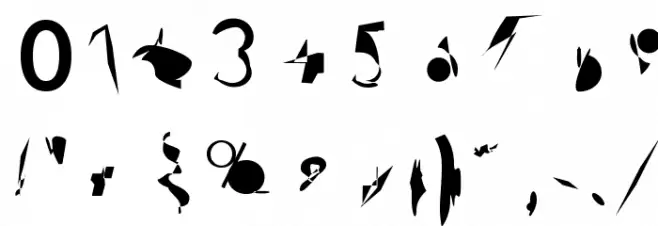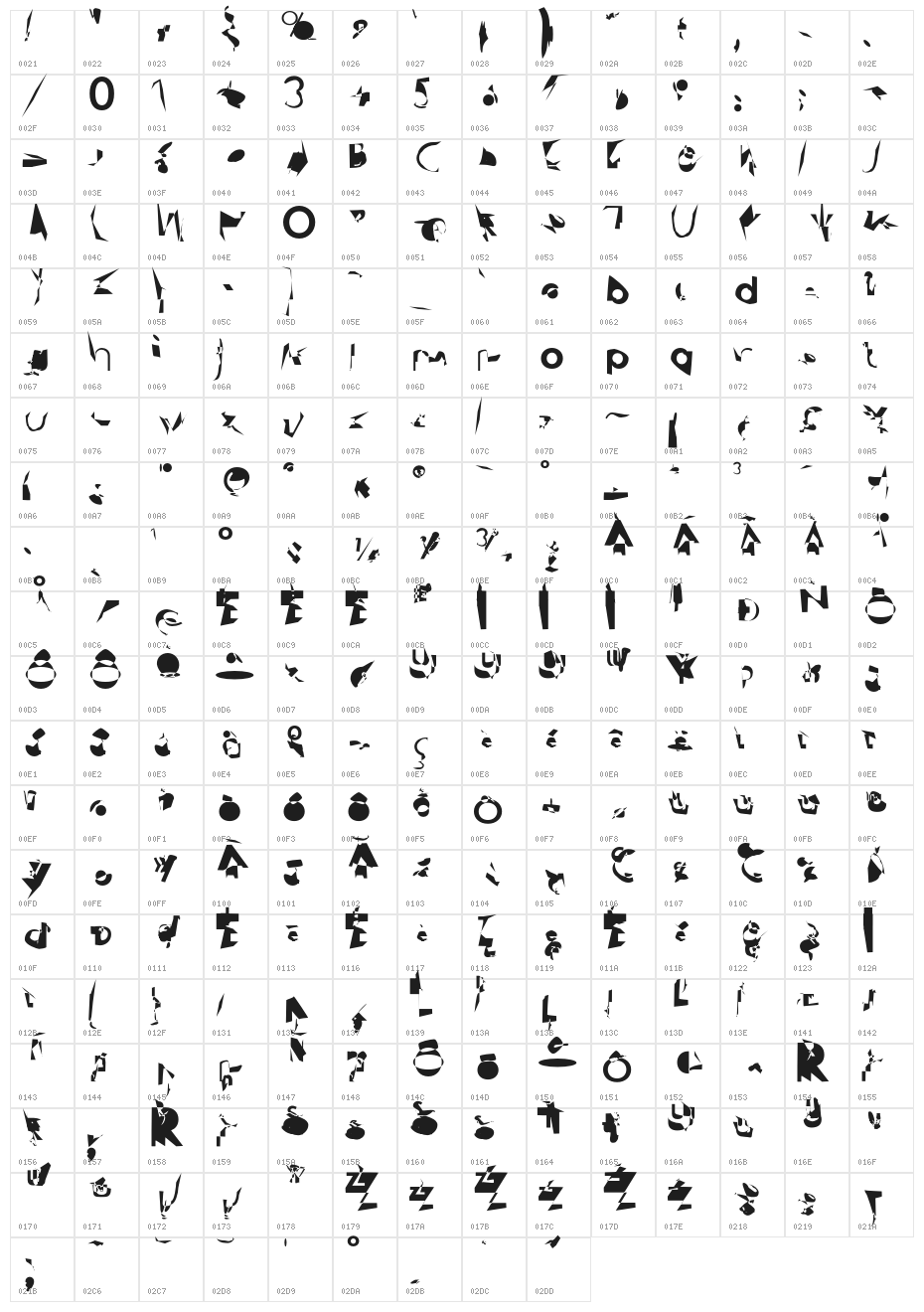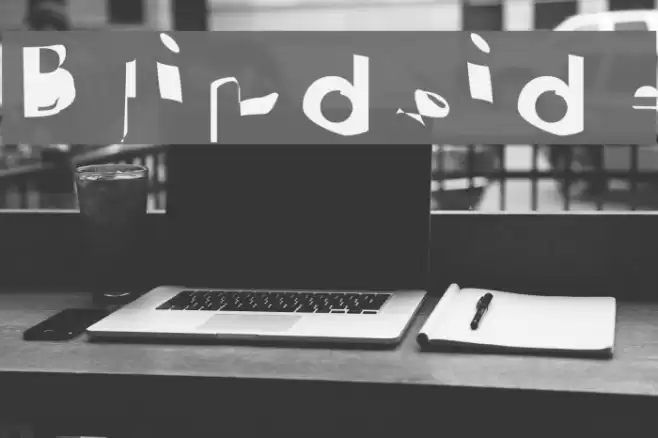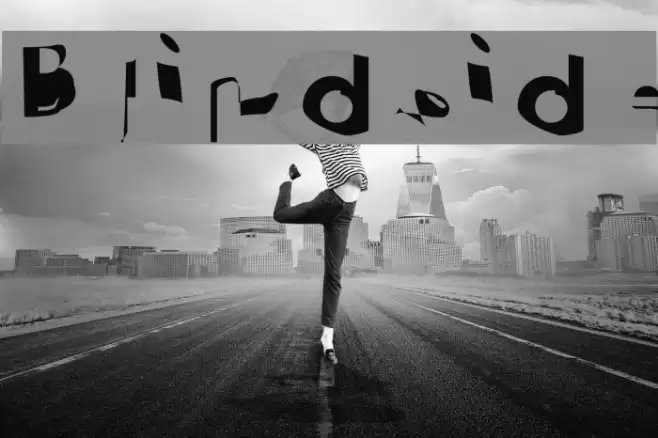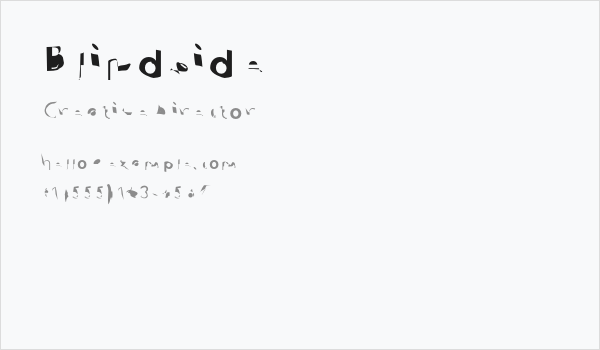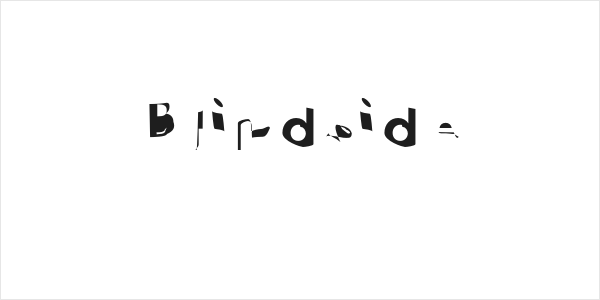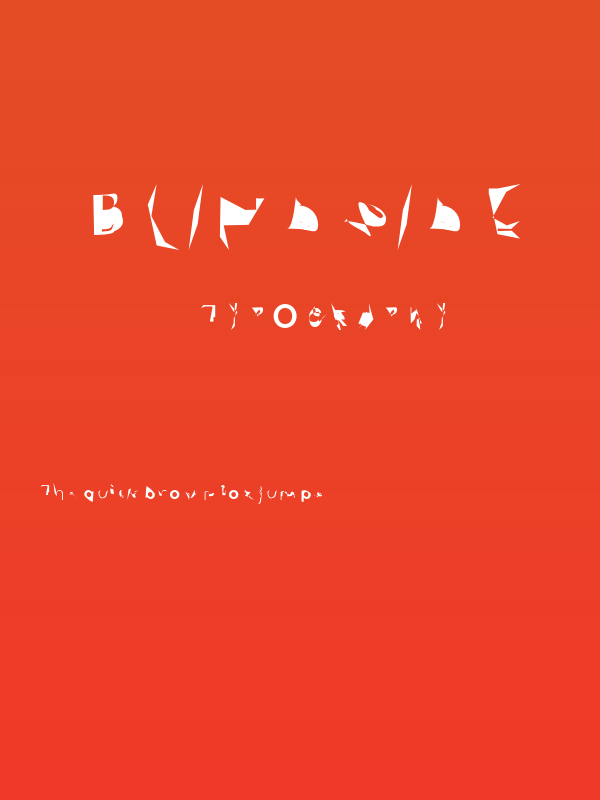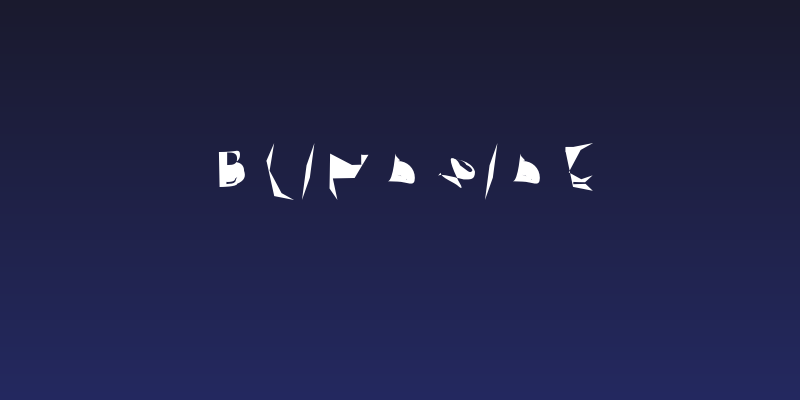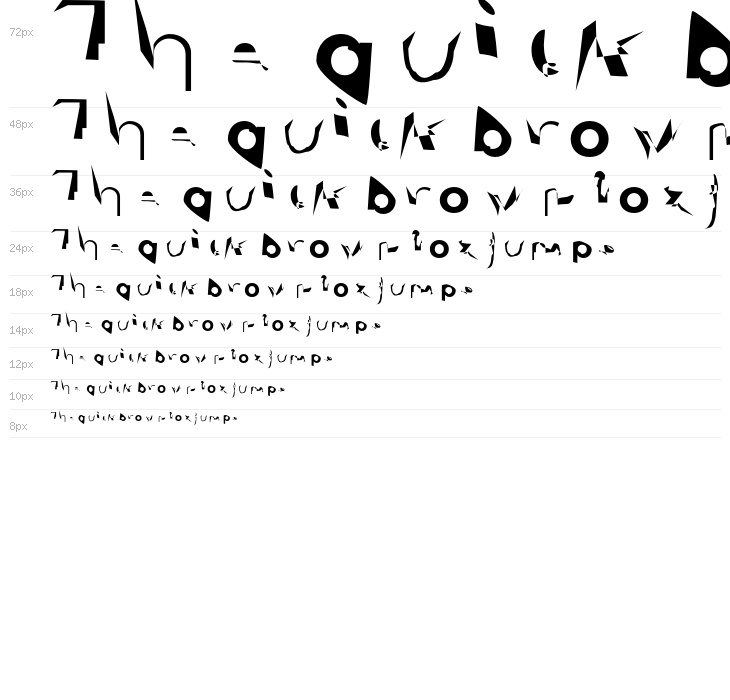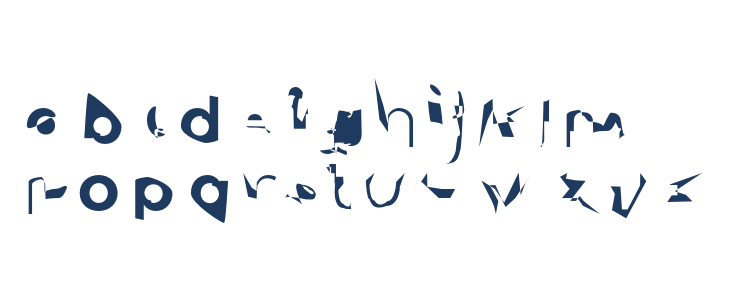
Blindside Font
Blindside Description
This font presents a highly abstract and fragmented design, characterized by sharp angles and irregular shapes. Each character appears to be deconstructed and reassembled, creating a sense of chaos and movement. The letters and numbers are barely recognizable, offering a unique visual experience that challenges traditional readability. This style is bold and experimental, making it suitable for projects that aim to push boundaries and capture attention. The font's distinctiveness lies in its ability to convey a sense of disruption and modernity, appealing to avant-garde and artistic endeavors.
| Overall Style | Modern, Experimental |
| Use Case | Logos, Artistic displays, Experimental design |
| Proposed Projects | Ideal for avant-garde art projects, experimental design, and modern art installations. |